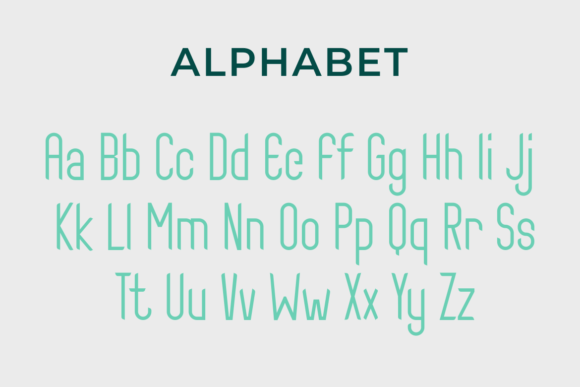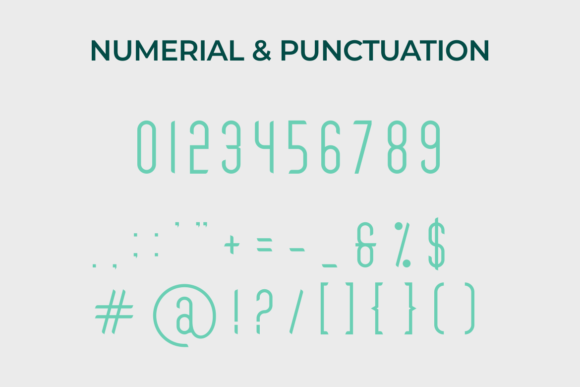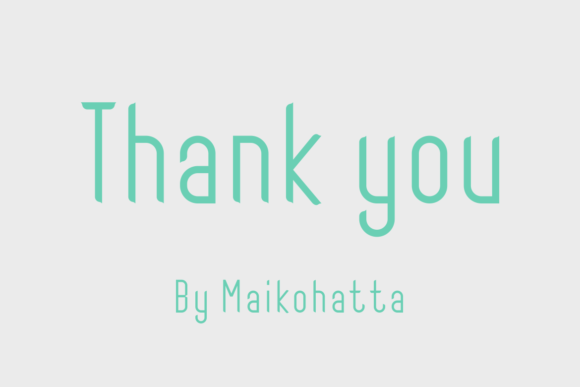
Introduction to Hijume Font
As designers, we’ve all been there – staring at a blank canvas, unsure of where to begin. But what if you stumbled upon the perfect font to spark your creativity? For many, this moment came when they discovered the Hijume Font. This delicate and stylish sans serif font is a game-changer, offering a high-quality design resource that’s perfect for any creative project.
Whether you’re working on a design project with a transparent background or need a font for a website, the Hijume Font is an excellent choice. Its versatility and clean lines make it suitable for a wide range of applications, from branding to editorial content. And the best part? It’s available for free download, making it an invaluable resource for designers on a budget.
- High-quality design: Hijume Font offers a unique and elegant design that is perfect for creative projects.
- Transparent background: This font features a transparent background, making it ideal for use on various design elements and backgrounds.
- Unique characteristics: This font features a distinctive and modern design, with a range of stylistic sets and language support for multilingual projects.
- Design resource: Hijume Font is a versatile design resource that can be used for various creative projects, from graphic design to digital art.
I recently had the chance to work with the Hijume Font, and I must say, it’s been a great addition to my design resource library. This high-quality font is perfect for any creative project that requires a unique touch.
- ✨ High-quality design: The Hijume Font is meticulously crafted with attention to detail, resulting in a visually appealing and professional look.
- ✨ Transparent background: This feature allows for seamless integration with various design backgrounds, giving me more flexibility when working on a project.
- ⚠️ Limited language support: The Hijume Font only supports a limited number of languages, which might be a concern for designers working on multilingual projects.
- ⚠️ Limited customization options: While the font is high-quality, it’s not particularly versatile, which might limit its use in certain design scenarios.
Overall, I’m impressed with the Hijume Font. It’s a solid design resource that can elevate any creative project. While it has its limitations, I appreciate its high-quality design and free download feature. If you’re looking for a unique font to add some flair to your design, I’d definitely recommend checking it out.
The Hijume Font is perfect for a variety of creative projects, including:
- Typography
- Branding
- Use the font on a transparent background for a clean and modern look.
- Experiment with different font sizes and styles to add visual interest.
- Combine the Hijume Font with other design elements for a unique look.